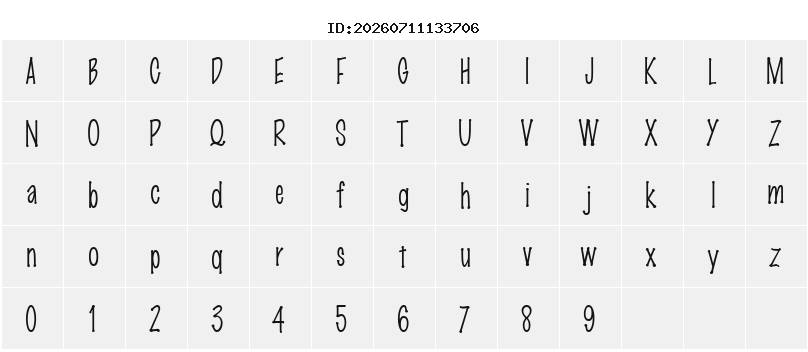
Marker Preview
• Font Name: Marker
• Font Style: FinePoint
• Font ID: Altsys Fontographer 4.0.3 Marker FinePoint
• Full Font Name: Marker FinePoint
• Version: Altsys Fontographer 4.0.3 06.06.1994
• PostScript Name: MarkerFinePoint
• Character Count: 163
About Marker.ttf
Marker.ttf is a modern, elegant sans-serif font designed for ultimate readability and visual harmony. Perfect for branding, headlines, web design, and print materials.